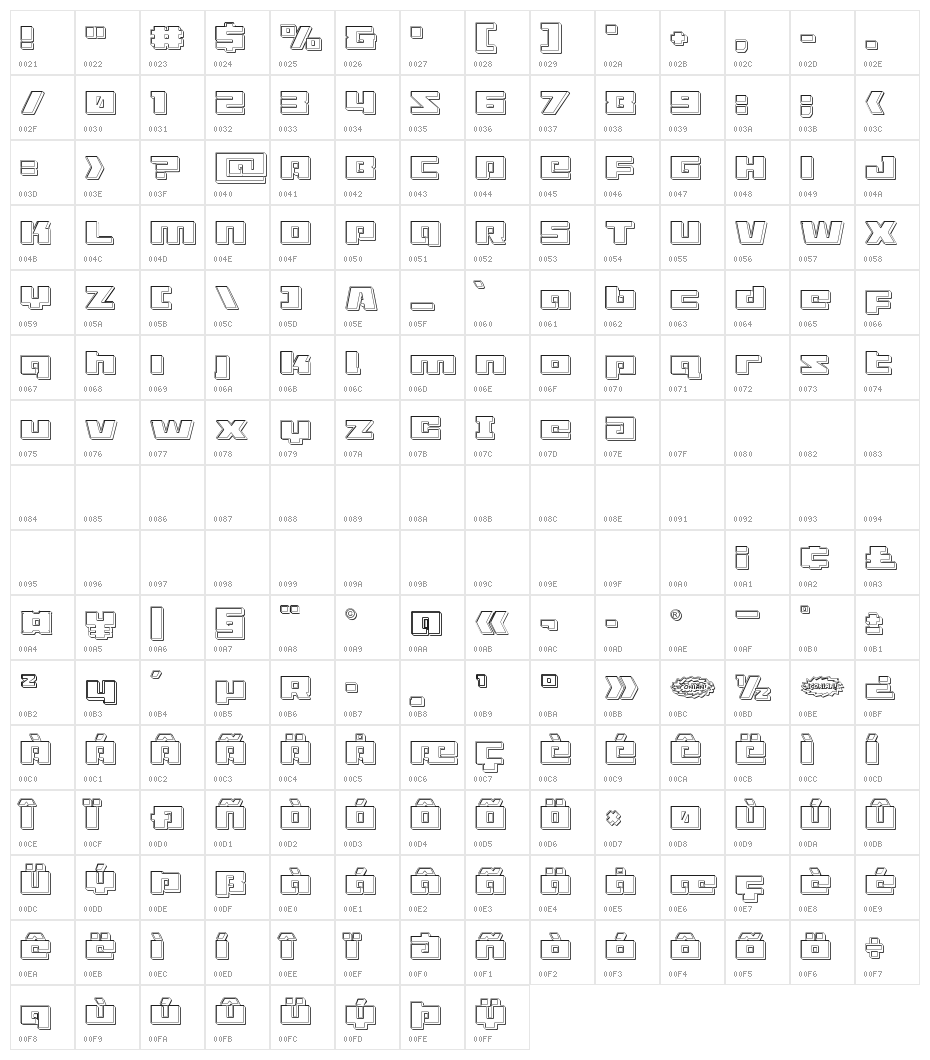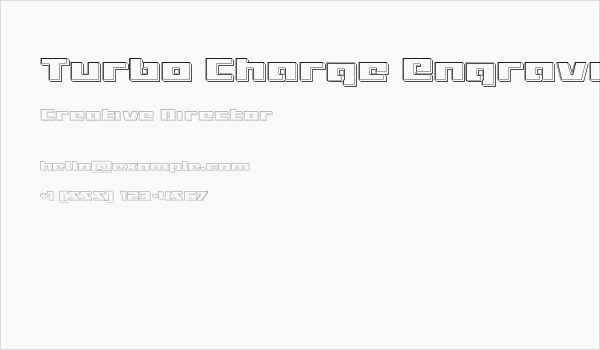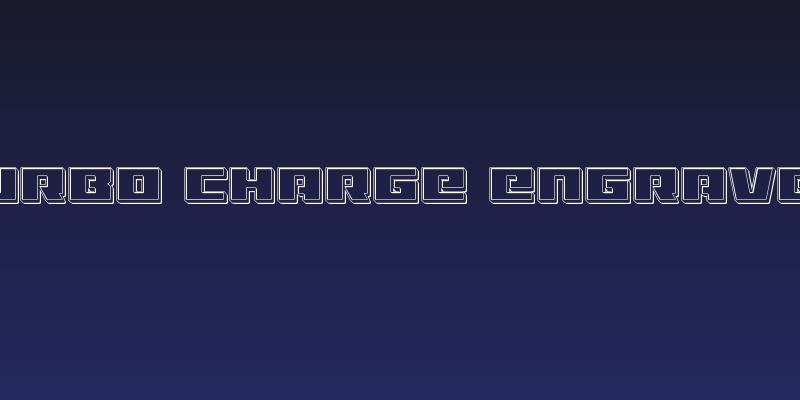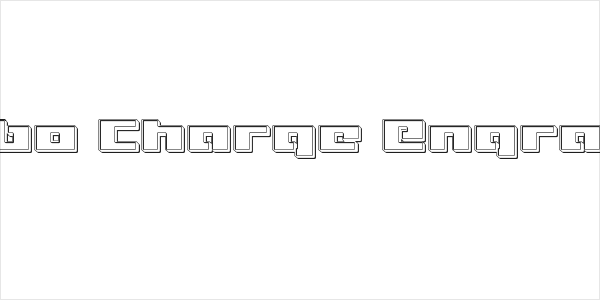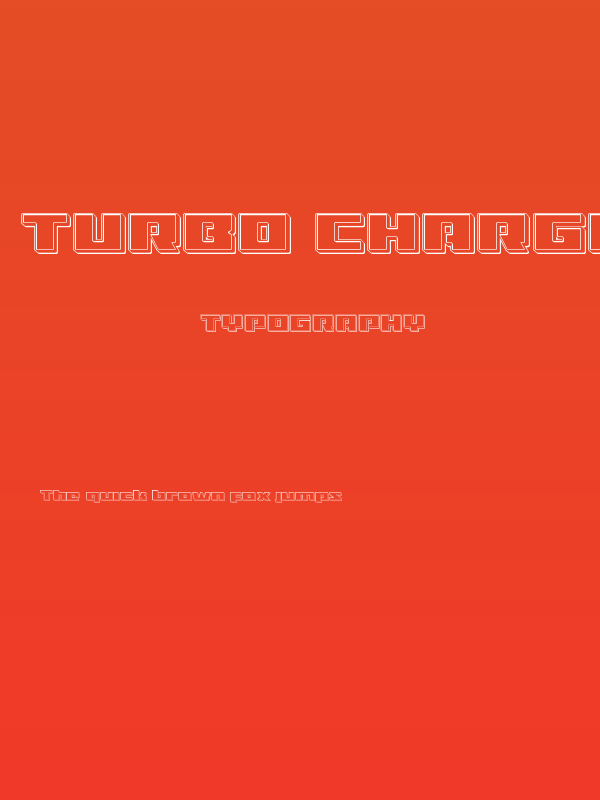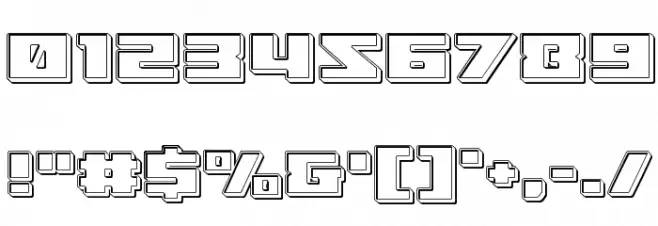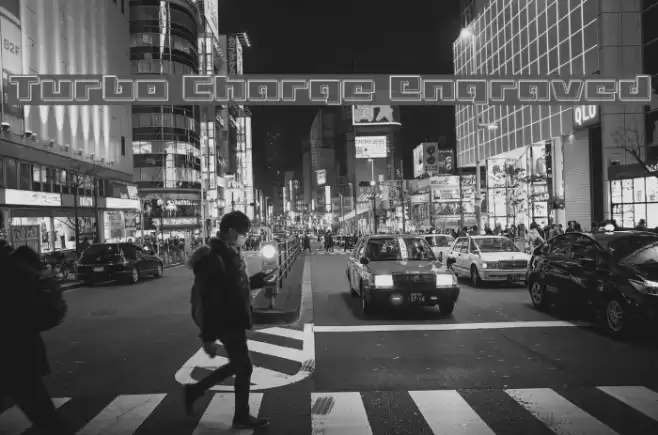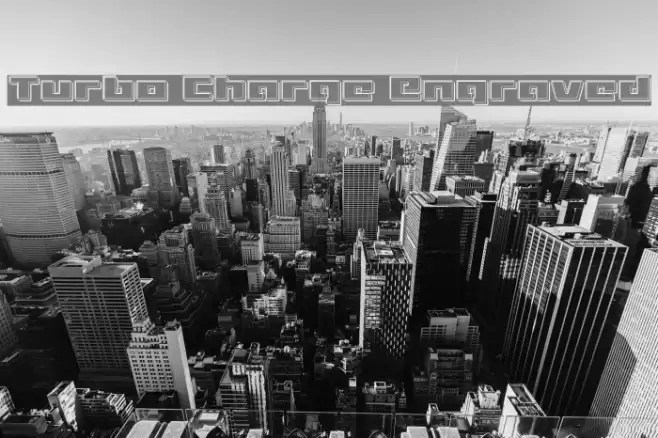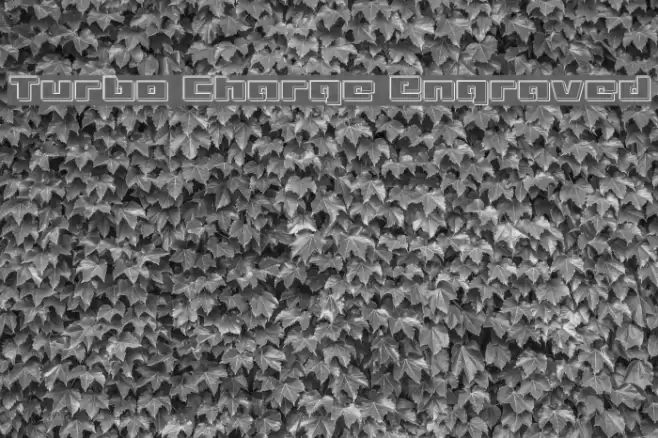
Turbo Charge Engraved Font
Turbo Charge Engraved Description
This font features a bold, futuristic design with a distinct engraved effect. The characters are outlined with a double line, creating a three-dimensional appearance that adds depth and interest. The geometric shapes and sharp angles give it a modern and tech-inspired look. The uppercase and lowercase letters maintain a consistent style, while the numerals and special characters complement the overall design. This font is ideal for projects that require a strong, impactful visual presence.
| Proposed Projects | Ideal for technology branding, video game titles, sci-fi movie posters, and modern logo designs. |